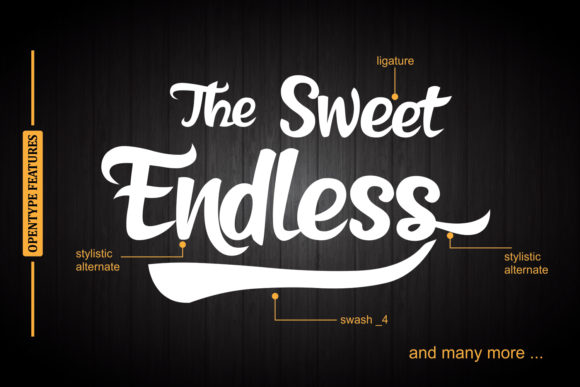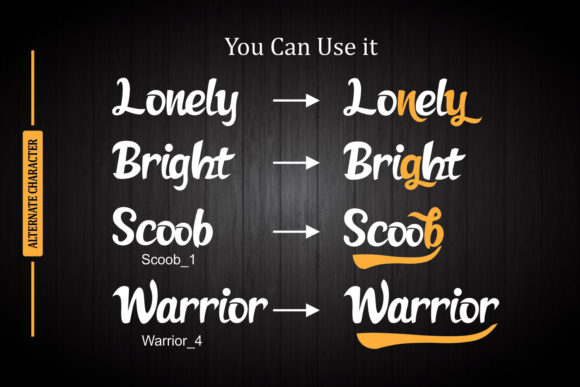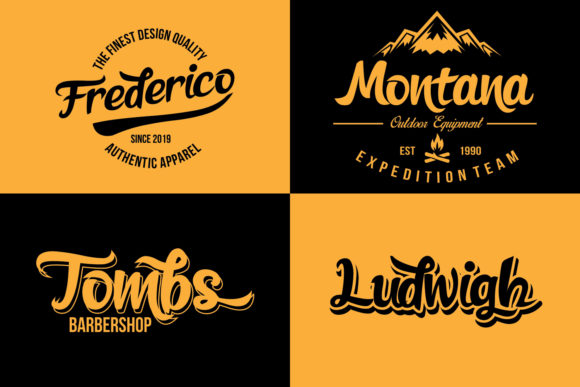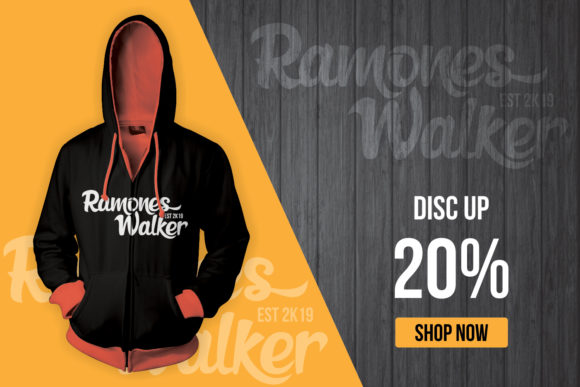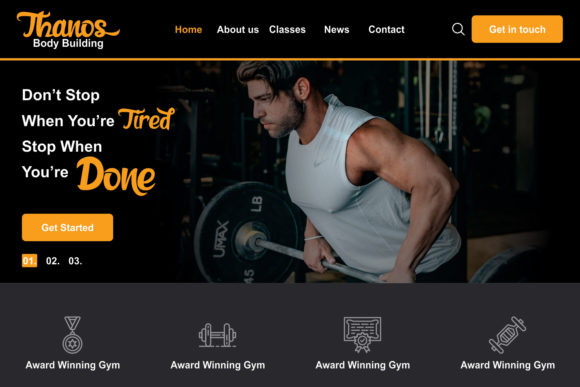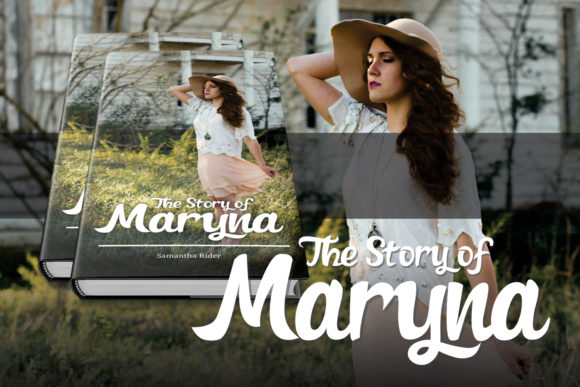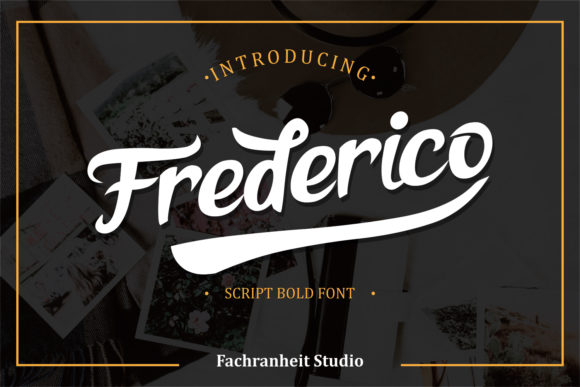
Introducing Frederico: The Ultimate Bold Script Font for Standout Designs
Are you tired of using the same old fonts in your designs? Do you want to add a touch of elegance and sophistication to your projects? Look no further than Frederico, a natural bold script font with a vintage feel that’s sure to turn any design idea into a true standout!
Frederico is a versatile font that’s perfect for designers and crafters who want to add a personal touch to their work. Whether you’re creating a logo, branding materials, or social media graphics, Frederico is the perfect choice. Its bold and flowing script style is sure to grab attention and make your designs stand out from the crowd.
A Vintage Feel with a Modern Twist
Frederico’s vintage feel is one of its most distinctive features. The font’s natural, handwritten style gives it a warm and inviting feel that’s perfect for creating designs that are both nostalgic and modern. The font’s bold lines and flowing curves make it perfect for use in a variety of design applications, from elegant wedding invitations to bold advertising campaigns.
Key Features of Frederico
- Natural, handwritten style: Frederico’s script style is designed to look like it was written by hand, giving it a warm and personal feel.
- Bold and flowing curves: The font’s bold lines and flowing curves make it perfect for creating eye-catching designs that grab attention.
- Vintage feel: Frederico’s vintage feel is perfect for creating designs that are both nostalgic and modern.
- Versatile: Frederico is perfect for use in a variety of design applications, from logos and branding materials to social media graphics and advertising campaigns.
How to Use Frederico in Your Designs
Using Frederico in your designs is easy. Here are a few tips to get you started:
- Pair it with a sans-serif font: Pairing Frederico with a sans-serif font can create a beautiful contrast that’s perfect for creating eye-catching designs.
- Use it as a headline font: Frederico’s bold style makes it perfect for use as a headline font. Use it to grab attention and draw the eye to your message.
- Add some texture: Adding some texture to your design can help to give it a more vintage feel. Try adding some subtle texture to your background or using a textured overlay to give your design some depth.
Why Choose Frederico?
So why choose Frederico for your design projects? Here are just a few reasons:
- Unique and distinctive: Frederico’s bold script style is sure to make your designs stand out from the crowd.
- Easy to read: Despite its bold style, Frederico is easy to read, even at small sizes.
- Versatile: Frederico is perfect for use in a variety of design applications, from logos and branding materials to social media graphics and advertising campaigns.
Frederico is a natural bold script font with a vintage feel that’s perfect for designers and crafters who want to add a touch of elegance and sophistication to their work. Its bold and flowing script style is sure to grab attention and make your designs stand out from the crowd. With its versatile design and easy-to-use style, Frederico is the perfect choice for any design project. So why wait? Download Frederico today and start creating standout designs that are sure to impress!